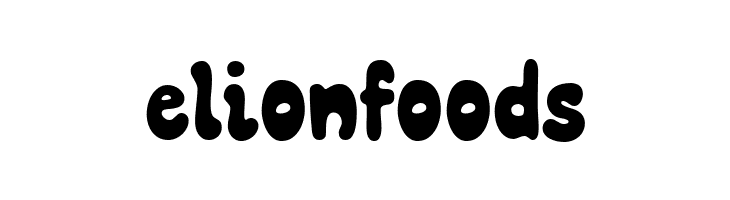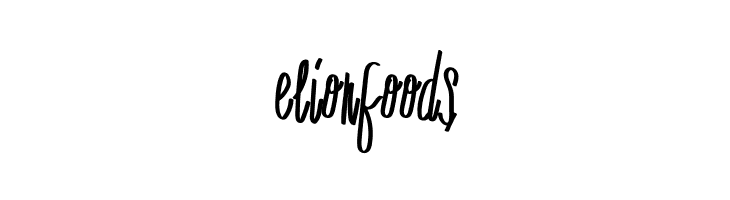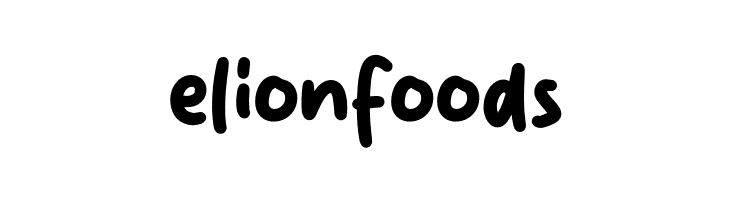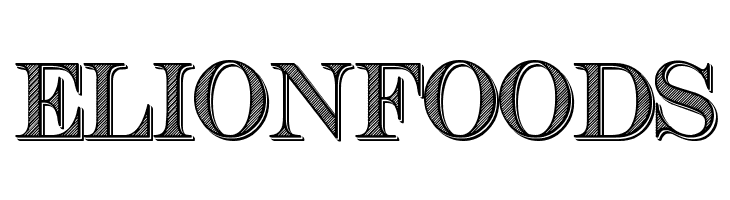
A bold, geometric font with a modern and uniform design.
A dynamic, flowing script font with elegant, slightly whimsical characters.
A playful, handwritten script font with fluid strokes and a lively appearance.
A bold, decorative serif font with intricate line shading and a classic, authoritative style.
Bold, playful sans-serif with quirky, irregular shapes.
A playful, handwritten-style font with bold, rounded characters.
A bold, playful font with thick, rounded characters and a hand-drawn feel.
A playful, casual handwritten font with flowing, interconnected letterforms.
A playful, bold font with rounded edges and a hand-drawn style.
A distressed, grunge-style font with a rugged, stencil-like appearance.